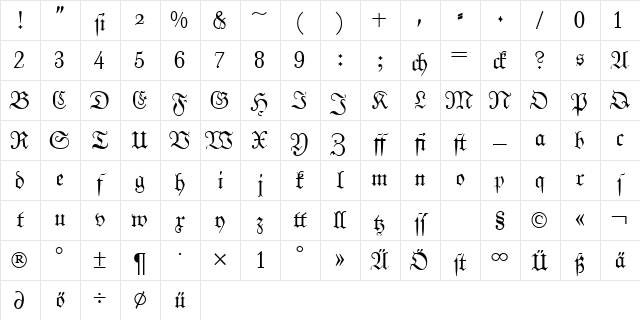
JohannFraktur DB Regular Free Font
JohannFraktur DB Regular
Design Context for JohannFraktur DB
JohannFraktur DB draws on the rich tradition of blackletter calligraphy, with dense, angular strokes that evoke medieval manuscripts and old-world craftsmanship.
Font Pairing: Pair with a clean neutral sans-serif for body copy to let JohannFraktur DB's character lead without overwhelming the composition.
Pro Tip: Reserve JohannFraktur DB for display and logo use - pair it with a clean sans-serif for body copy to prevent the composition from feeling oppressive.